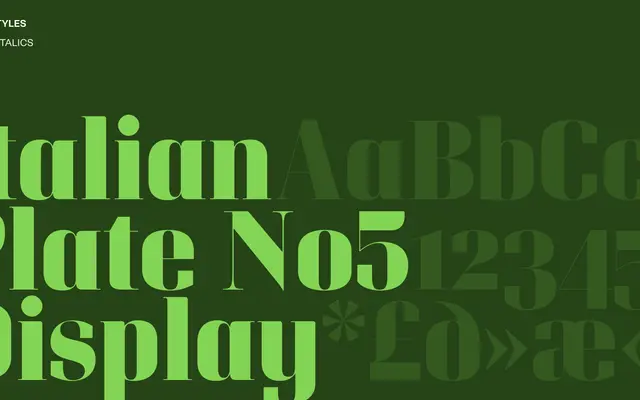
Italian Plate No5 Display
Italian Plate No5 Display specimen from Playtype
A display-specific cut from Playtype's Italian Plate series, intended for large-scale editorial and headline setting.
Part of Playtype's numbered Italian Plate series, this display-optimised cut is built for headline sizes where its high-contrast forms can be read at their best. The series naming convention suggests a broader family of related typefaces with distinct optical and stylistic registers. Suited to editorial, fashion and luxury contexts where a refined serif presence is required at scale.
The name and 'Display' designation suggest a high-contrast serif intended for large-scale use, positioned within a numbered Italian Plate series designed for headline and editorial applications.